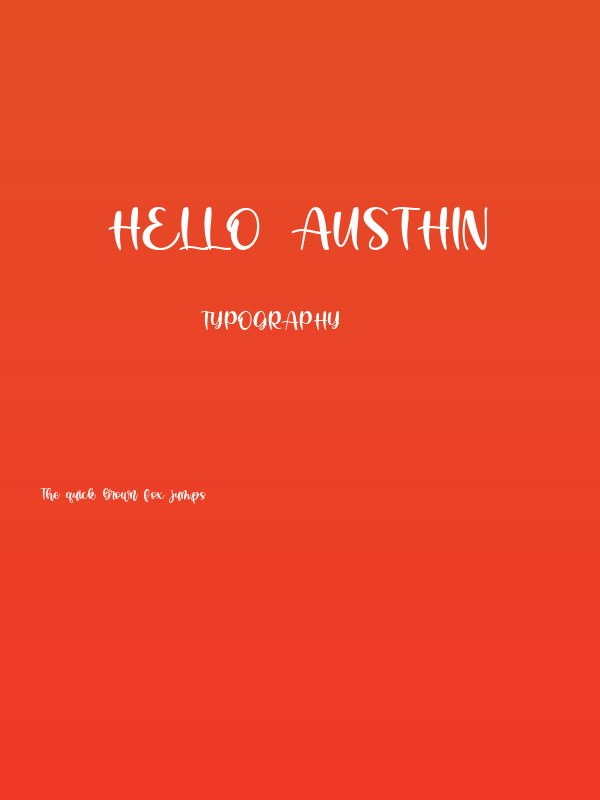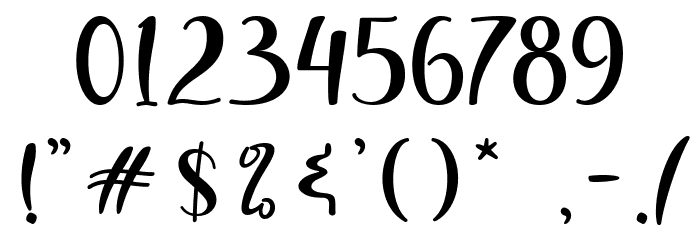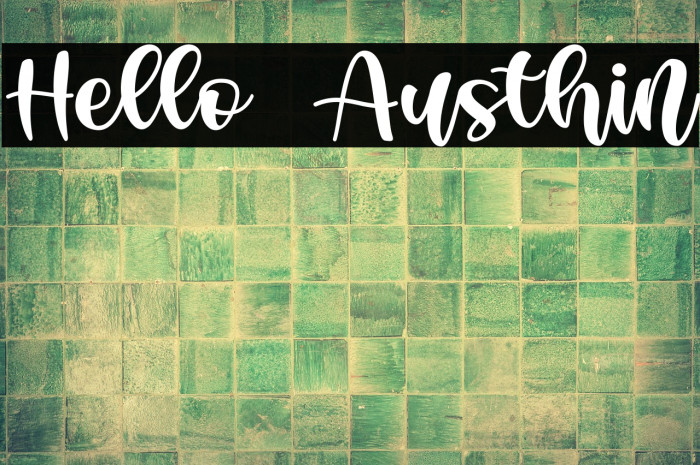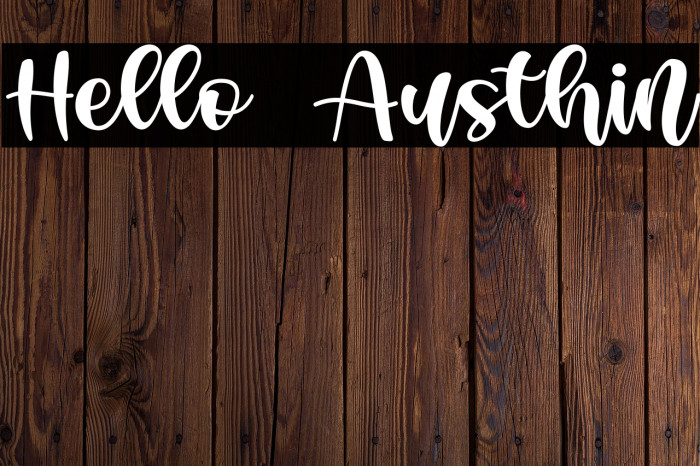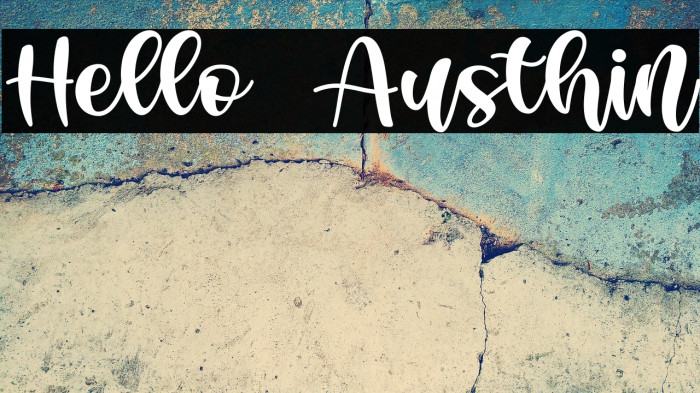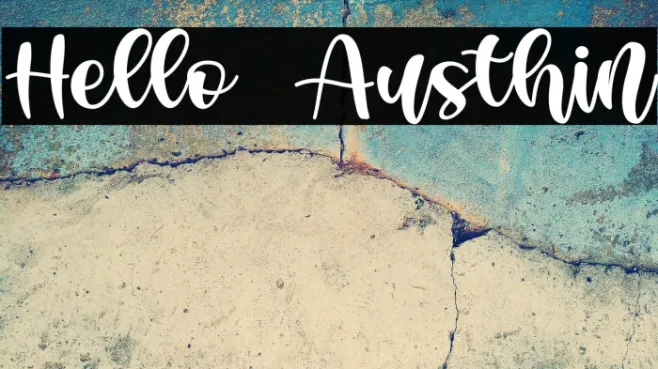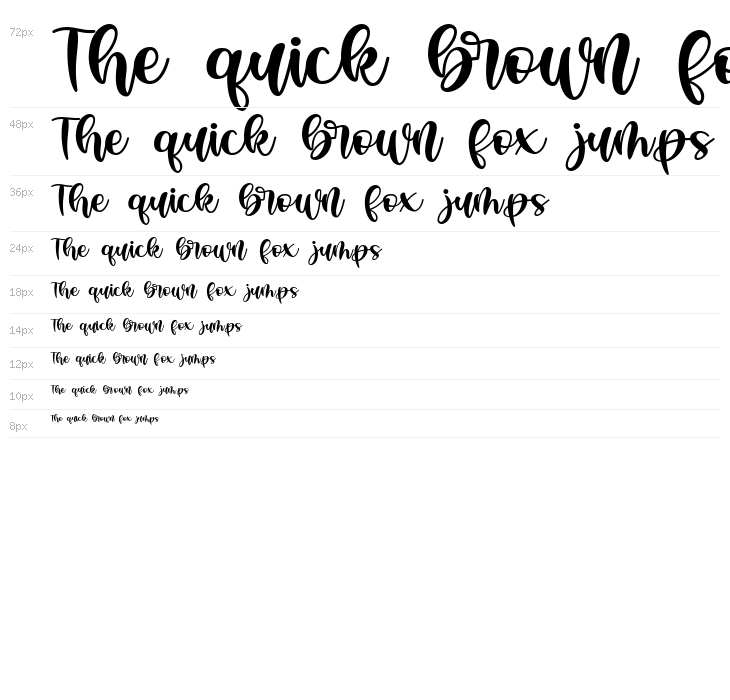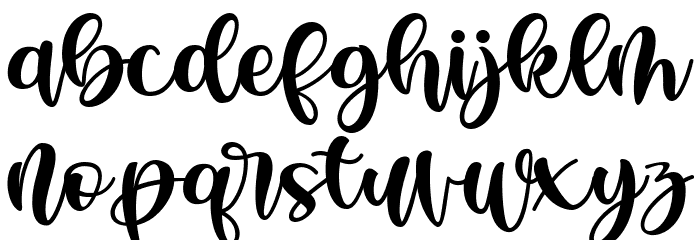
Hello Austhin Font
Hello Austhin Description
This font features a playful and energetic script style with a handwritten appearance. The letters are characterized by their flowing, cursive forms and varying stroke widths, creating a dynamic and lively feel. The uppercase letters are bold and prominent, while the lowercase letters maintain a consistent rhythm with smooth connections. The numerals are rounded and complement the overall style, adding to the font's cohesive look. Special characters are creatively integrated, enhancing the font's versatility. This font is ideal for projects that require a personal touch or a sense of whimsy.